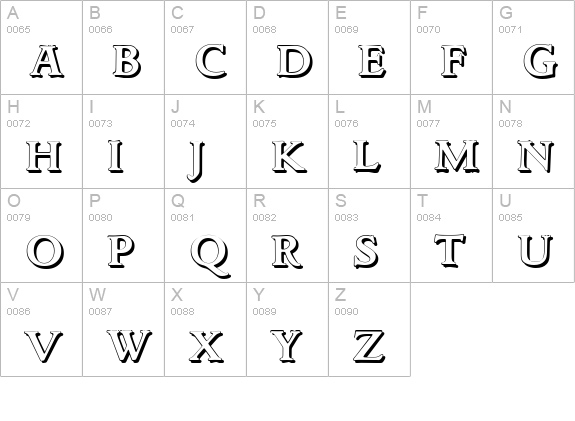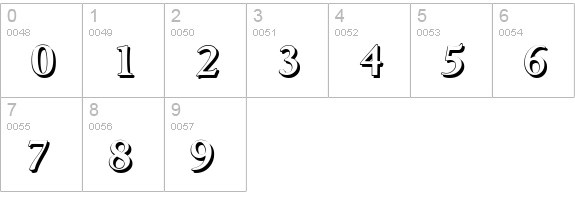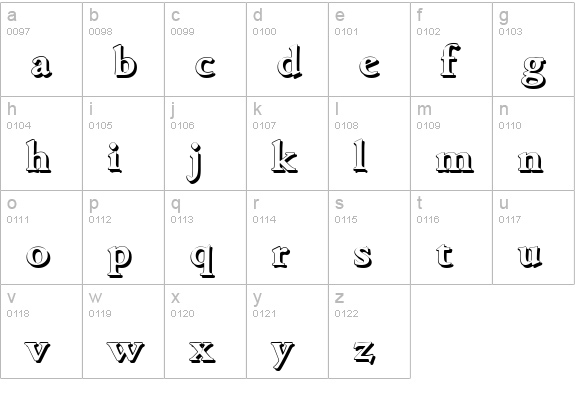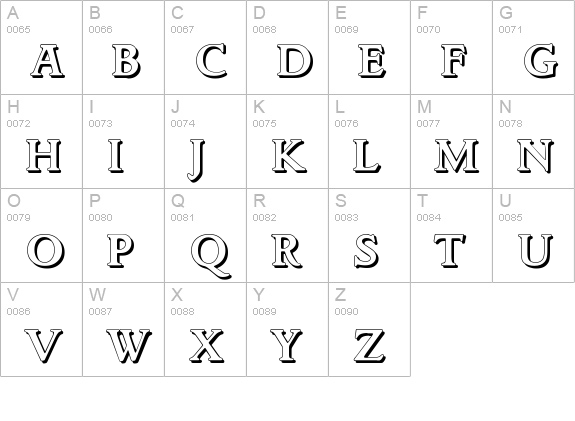
GouditaShadow-Bold is a strong, high-contrast variant in the GouditaShadow typeface family \xE2\x80\x94 well suited to headlines, attention-grabbing titles, and strong calls-to-action.
GouditaShadow-Bold is a stunning display font that exudes elegance and sophistication. Its bold and unique shadowed design makes it perfect for headlines, titles, and other prominent text elements. This font is sure to make a statement and capture attention with its distinctive style. The best part is that GouditaShadow-Bold is available for free download at FontsMarket.com. This means you can easily access this beautiful font and use it in your projects without any cost. Whether you're working on a branding project, a poster design, or any other creative endeavor, GouditaShadow-Bold will add a touch of class and flair to your work. Download it today and elevate your designs with this exquisite typeface.